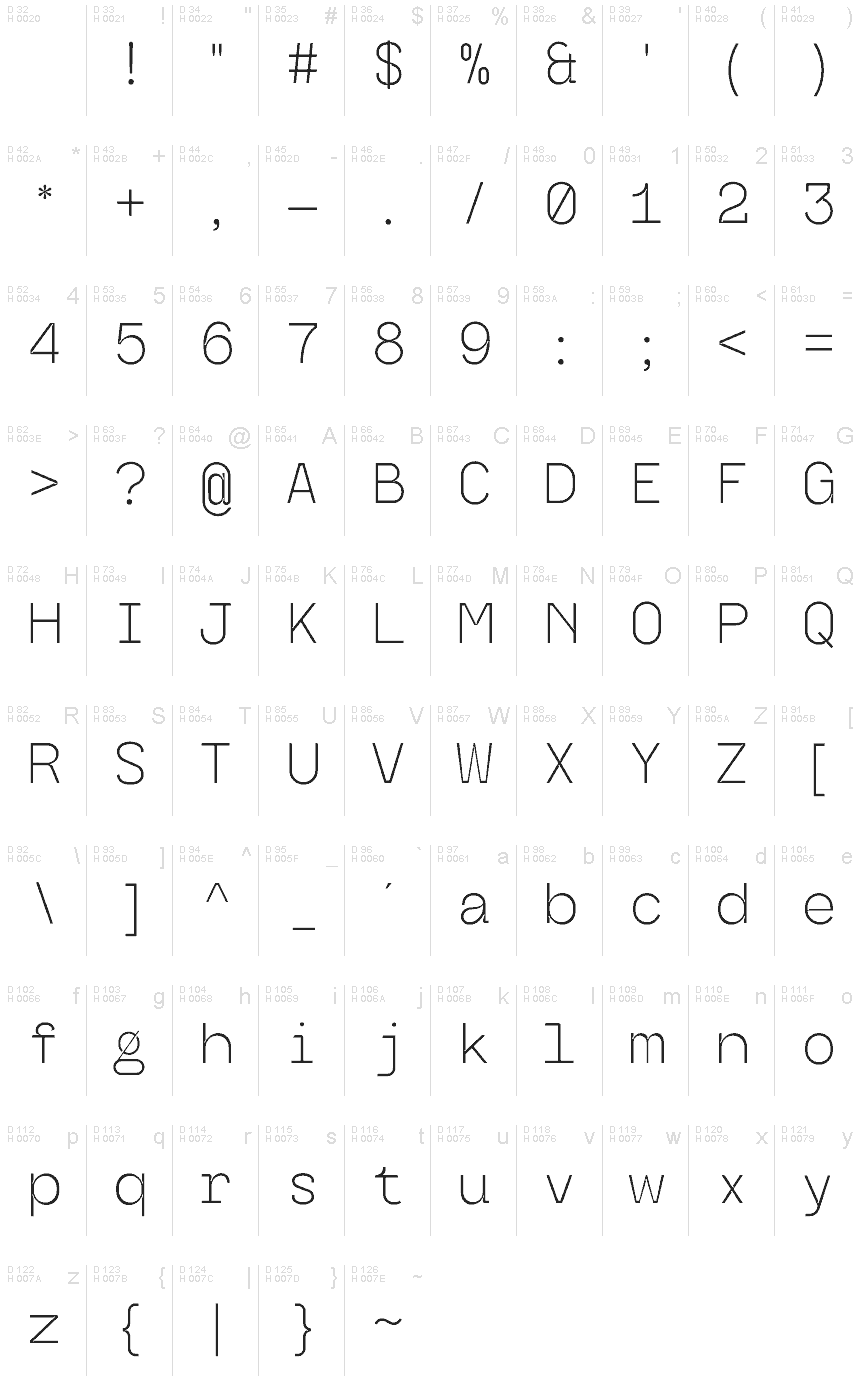
MGN Edinson Thin
MGN Edinson Thin font by Studio Morgana.id is a clean and modern sans serif typeface with light weight. Inspired by geometric influences, the minimalist font features optically balanced letters that make up a pleasant-to-see text. The overall aesthetic is simple yet professional, which creates remarkable title, paragraph, quote, and other text.